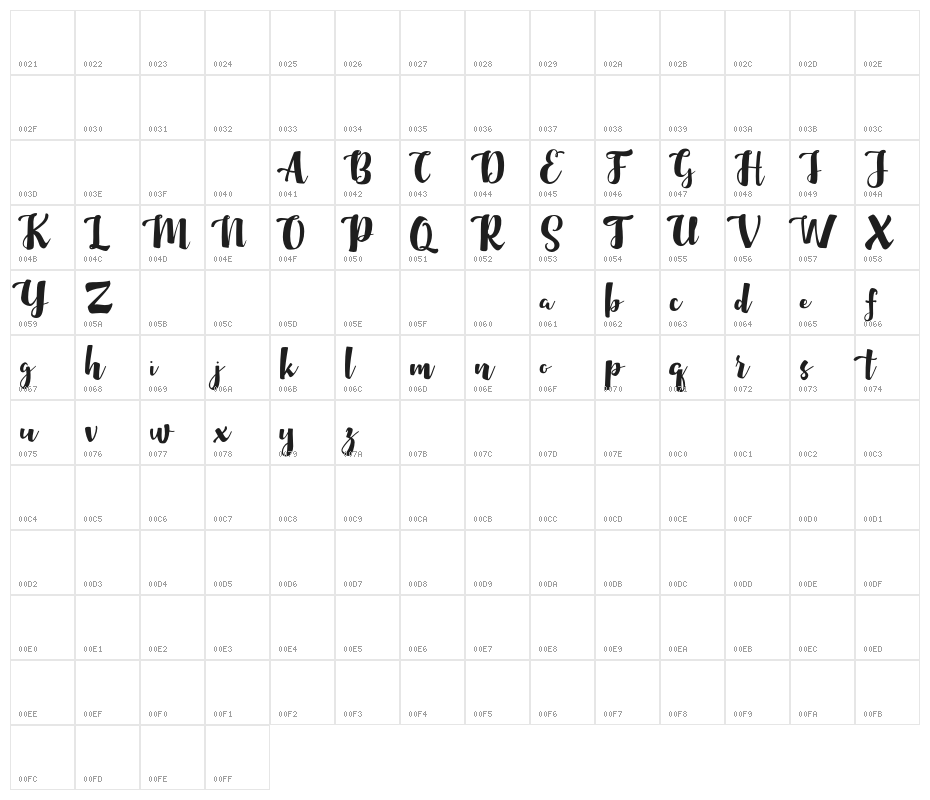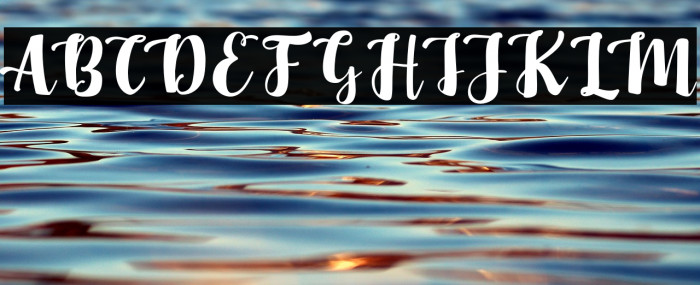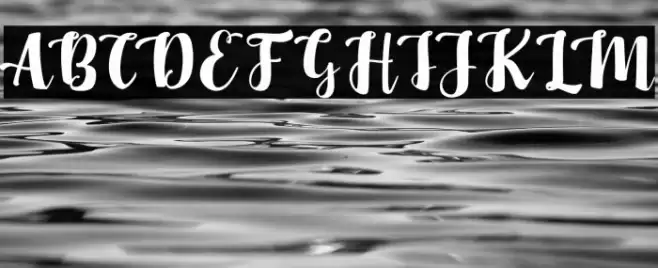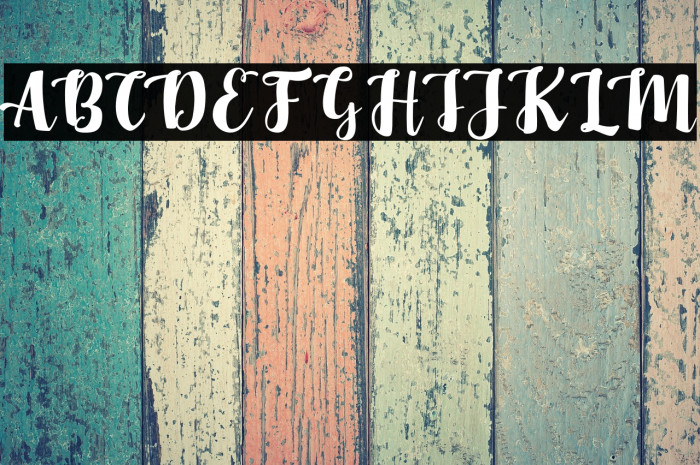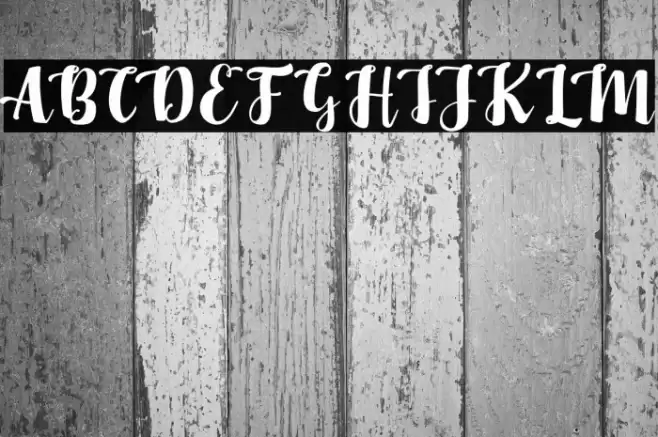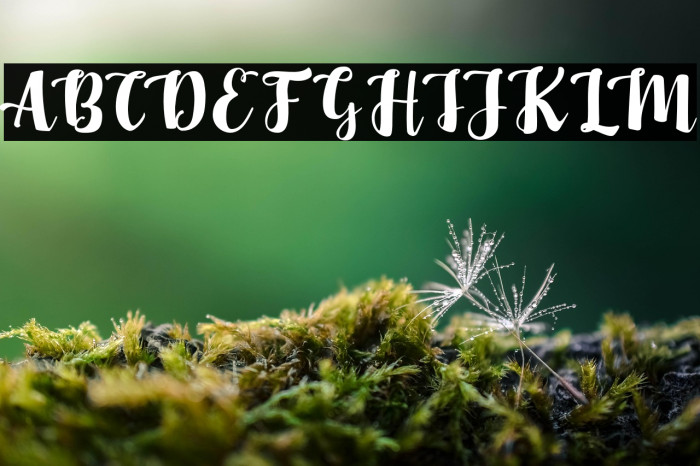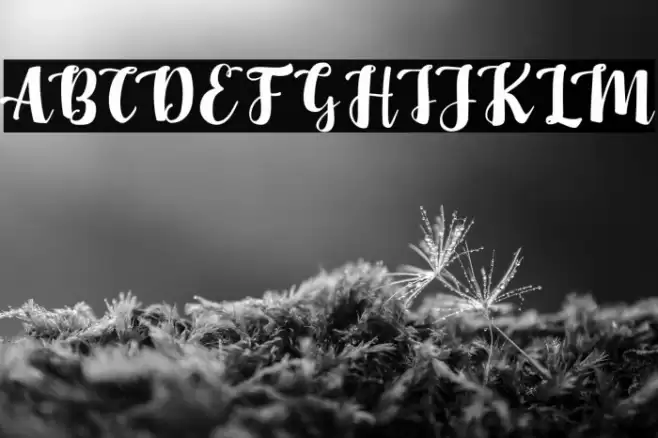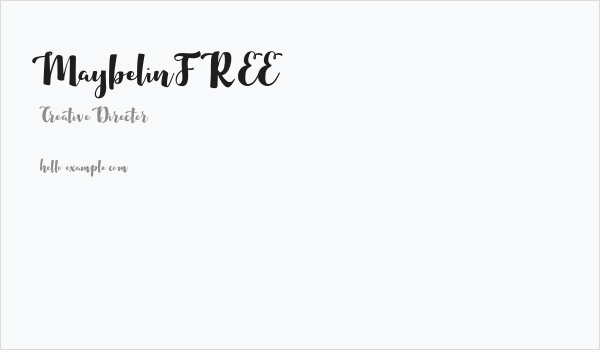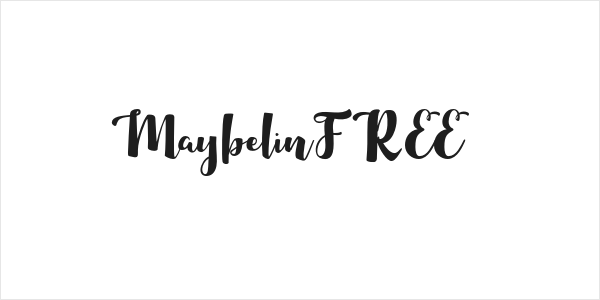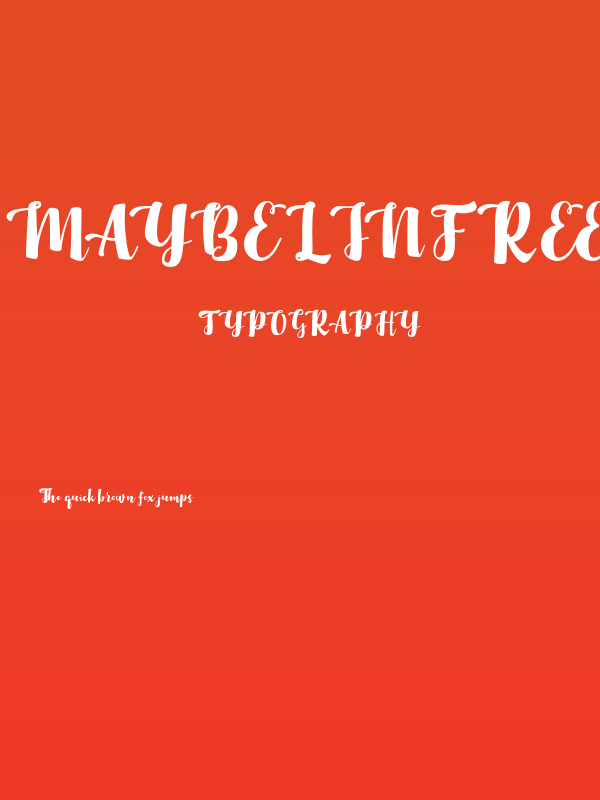
MaybelinFREE Font
MaybelinFREE Description
This font features a bold and expressive script style with a modern flair. The uppercase letters exhibit a flowing, cursive design with elegant loops and swashes, while the lowercase letters maintain a consistent, smooth flow with slightly exaggerated curves. The characters are well-balanced, providing a harmonious appearance across both uppercase and lowercase letters. The numbers and special characters are designed to match the overall aesthetic, ensuring a cohesive look. This font's bold strokes and high contrast make it stand out, ideal for creative and eye-catching designs.